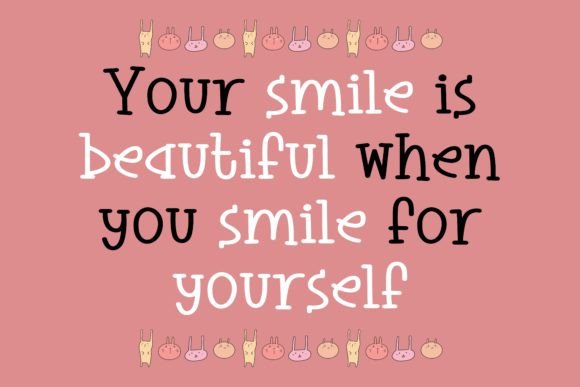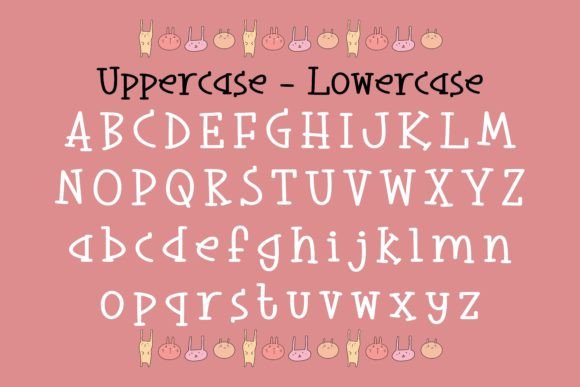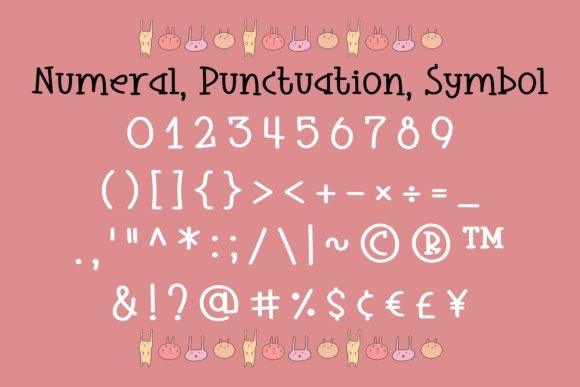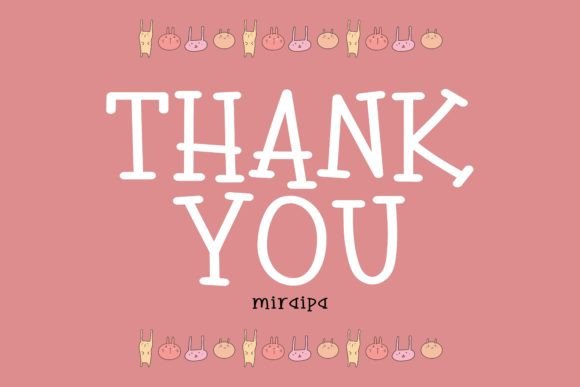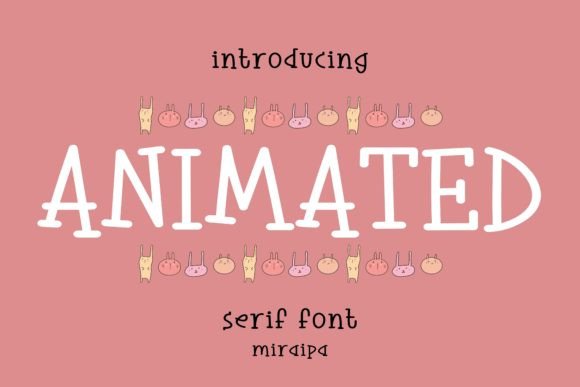
Introducing Animated: The Lively and Friendly Handwritten Serif Font
Are you tired of using the same old fonts for your designs? Look no further! We’re excited to introduce Animated, a lively and friendly handwritten serif font that’s perfect for adding a personal touch to your projects. With its unique and playful style, Animated is sure to bring any DIY project to life.
What Makes Animated So Special?
Animated is designed with a handwritten serif font style that’s both lively and friendly. Its unique charm makes it perfect for a wide range of design projects, from Easter and back to school themes to weddings, party decorations, and more. Whether you’re a designer, crafter, or DIY enthusiast, Animated is the perfect addition to your fonts library.
The versatility of Animated is one of its standout features. This font can be used for a wide range of design projects, including:
- Easter and spring-themed designs
- Back to school and education-related projects
- Weddings and party decorations
- Fall and Halloween-themed designs
- Christmas and holiday projects
- Blogs and social media posts
- Clothing and accessory designs
- Child-related designs and kids’ products
Why Choose Animated?
- Unique and playful style: Animated adds a personal touch to any design project, making it stand out from the crowd.
- Versatile: With its wide range of design possibilities, Animated is the perfect font for designers, crafters, and DIY enthusiasts.
Tips and Tricks for Working with Animated
- Experiment with different font sizes: Animated looks great in a range of font sizes, from small and delicate to large and bold.
- Play with color: Animated works well with a wide range of colors, from bright and bold to pastel and subtle.
- Add texture and patterns: Animated pairs well with texture and patterns, adding depth and interest to your designs.